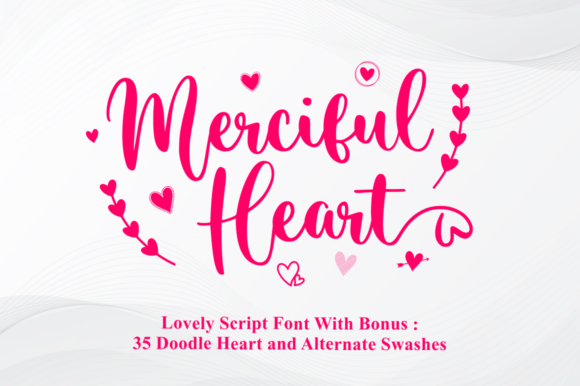
Introducing Merciful Heart Font, an exquisite script font that exudes romance and refinement. Specially designed for those who seek to elevate their designs with captivating logos, branding, and quotes, Merciful Heart is the ultimate choice for adding a touch of elegance and charm to any project.
Transport yourself to a world of creative possibilities as you explore the intricate details of each letter, handcrafted with a unique and beautiful touch. Merciful Heart's mesmerizing curves and delicate flourishes breathe life into your designs, turning them into captivating works of art.
With its intuitive PUA encoding, Merciful Heart makes it effortless to access an array of glyphs and swashes, allowing for seamless customization and endless creative opportunities. Unleash your imagination and let your designs flourish with Merciful Heart's boundless versatility.
Step into a realm where passion meets precision, where every word, every letter, and every stroke carries a profound emotional resonance. Merciful Heart's inherent elegance and undeniable charm evoke a sense of enchantment that will leave a lasting impression on your audience.
Embrace the power of Merciful Heart and embark on a creative journey like no other. Transform your designs into masterpieces, capture hearts, and leave a legacy of beauty and inspiration. Experience the magic of Merciful Heart today and unlock a world of endless creative possibilities.